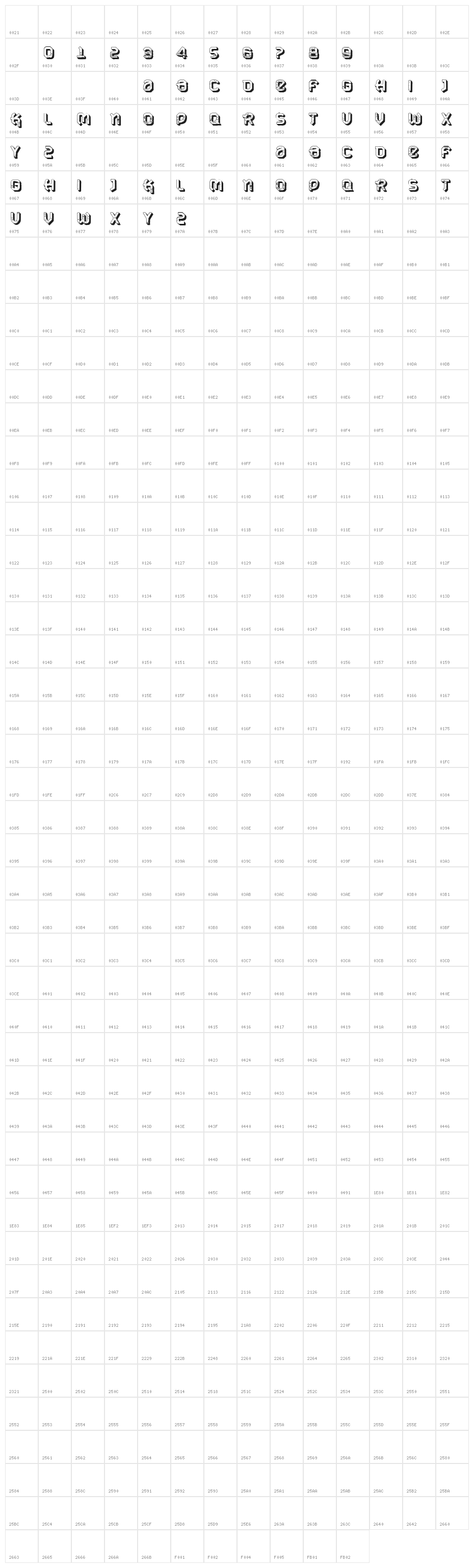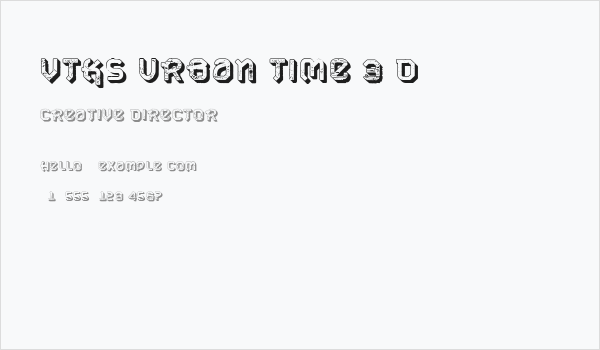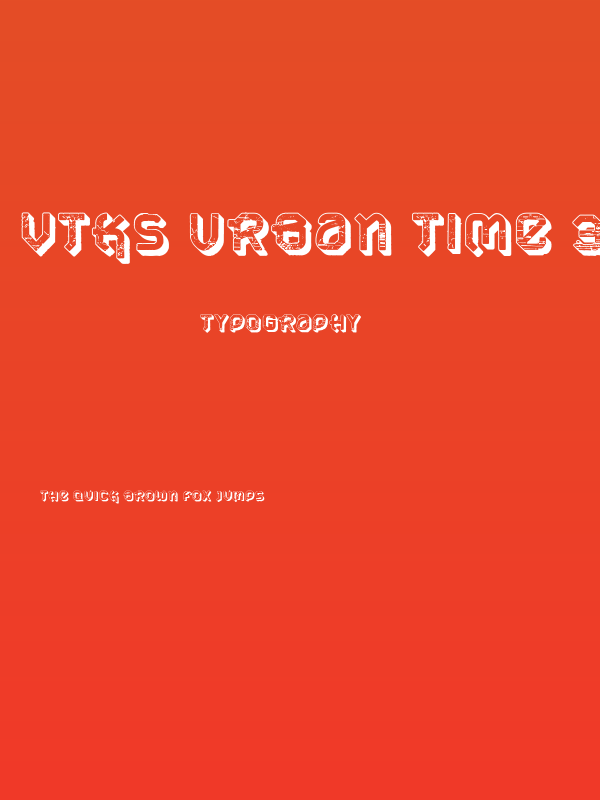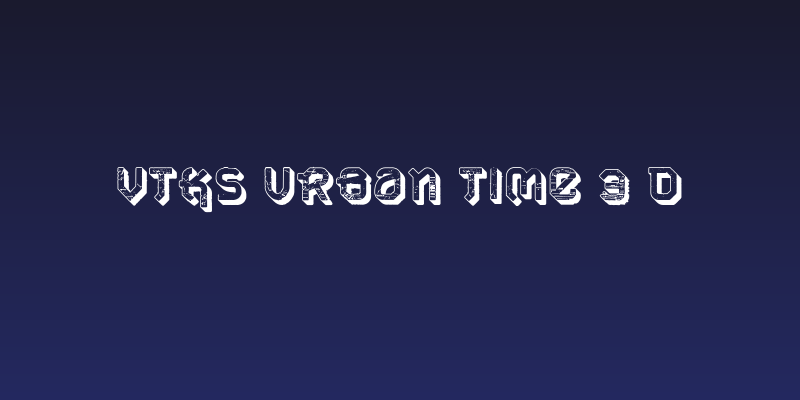
VTKS URBAN TIME 3 d Font
VTKS URBAN TIME 3 d Description
This font features a bold, urban style with a distressed, grunge texture that gives it a rugged and edgy appearance. The characters are blocky and three-dimensional, with a shadow effect that adds depth and a sense of movement. The uppercase and lowercase letters are consistent in style, maintaining the same boldness and texture. The numbers and special characters follow the same design, ensuring a cohesive look across all elements. The font's unique style makes it stand out, perfect for projects that require a strong, impactful visual statement.
| Overall Style | Urban, Grunge, Bold |
| Proposed Projects | Ideal for street art posters, music album covers, urban-themed branding, and edgy graphic designs. |